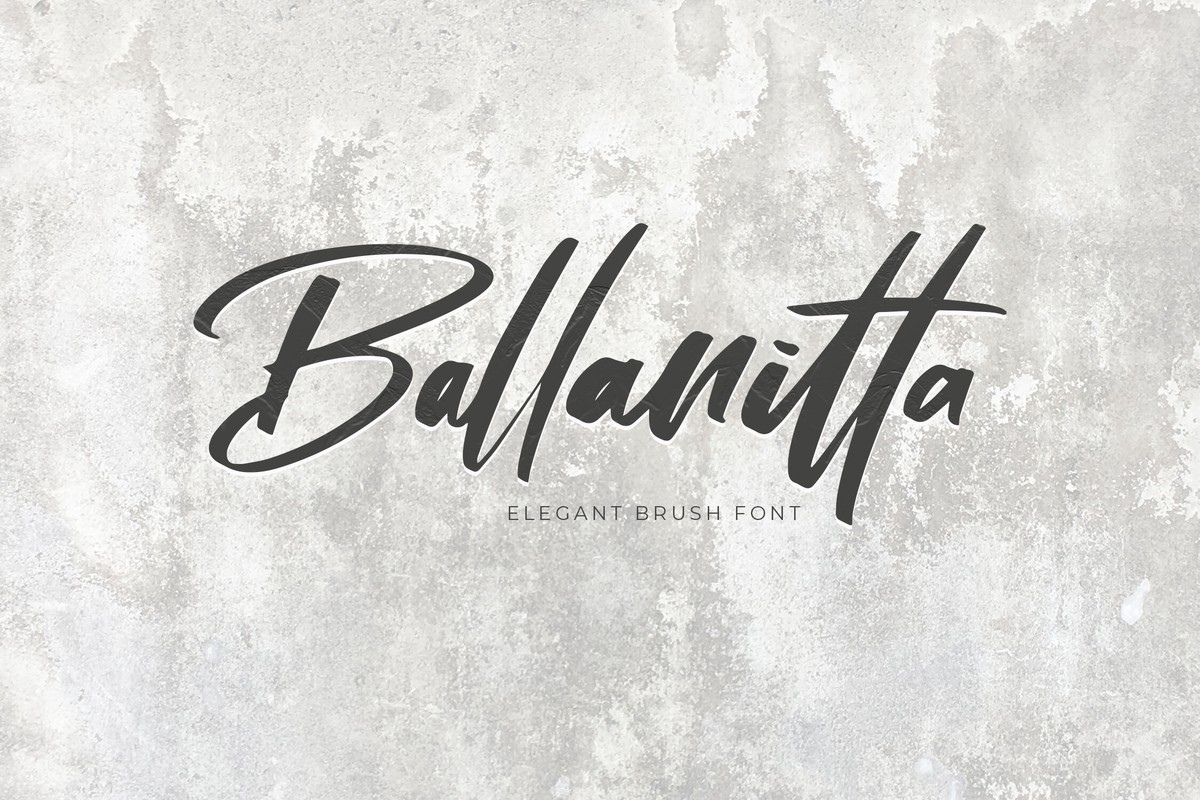
Ballanitta Font
Ballanitta Font excels in elegant dance studios, classical ballet academy branding, graceful wedding venues, sophisticated performing arts centers, refined cultural institutions, delicate jewelry boutique displays, premium dance wear collections, artistic movement workshops, graceful lifestyle magazines, and enchanting fairytale-themed celebrations. This graceful typeface brings balletic elegance and artistic sophistication to any dance-focused design project.
Ballanitta Font is exciting because it embodies the ethereal grace and artistic precision of classical ballet, featuring flowing letterforms that seem to dance across the page with the same elegant poise and fluid movement that characterizes the world's most accomplished ballerinas. Its balletic character instantly conveys artistic refinement, graceful beauty, and the disciplined elegance that transforms human movement into transcendent art.
Ballanitta Font family includes Light, Regular, Medium, and Bold weights with balletic alternates, graceful flourishes, dance-inspired ornamental elements, and artistic symbols that enhance the elegant aesthetic, providing dance designers with sophisticated tools for creating typography that celebrates the artistic beauty and graceful precision of classical dance and movement arts.
Dance industry designers appreciate Ballanitta Font for its exceptional ability to convey balletic grace and artistic sophistication through elegantly crafted letterforms. The font's graceful character and dance details create immediate associations with classical performances, artistic training, and the disciplined beauty that defines ballet as one of humanity's most refined and expressive art forms.
The design philosophy behind Ballanitta Font celebrates the timeless art of ballet and the dedication required to achieve the perfect balance of strength, grace, and artistic expression that transforms human movement into poetry in motion, making it particularly effective for dance organizations, performing arts venues, and cultural institutions that preserve and promote classical dance traditions. Arts teams working on ballet projects find this font essential.
Whether used for ballet companies, dance academies, or performing arts festivals, Ballanitta Font delivers the perfect combination of balletic grace and artistic sophistication. Its elegant appeal and dance authenticity make it an indispensable choice for organizations that celebrate classical dance, promote artistic excellence, and honor the graceful tradition of ballet that continues to inspire audiences with its timeless beauty and artistic refinement.